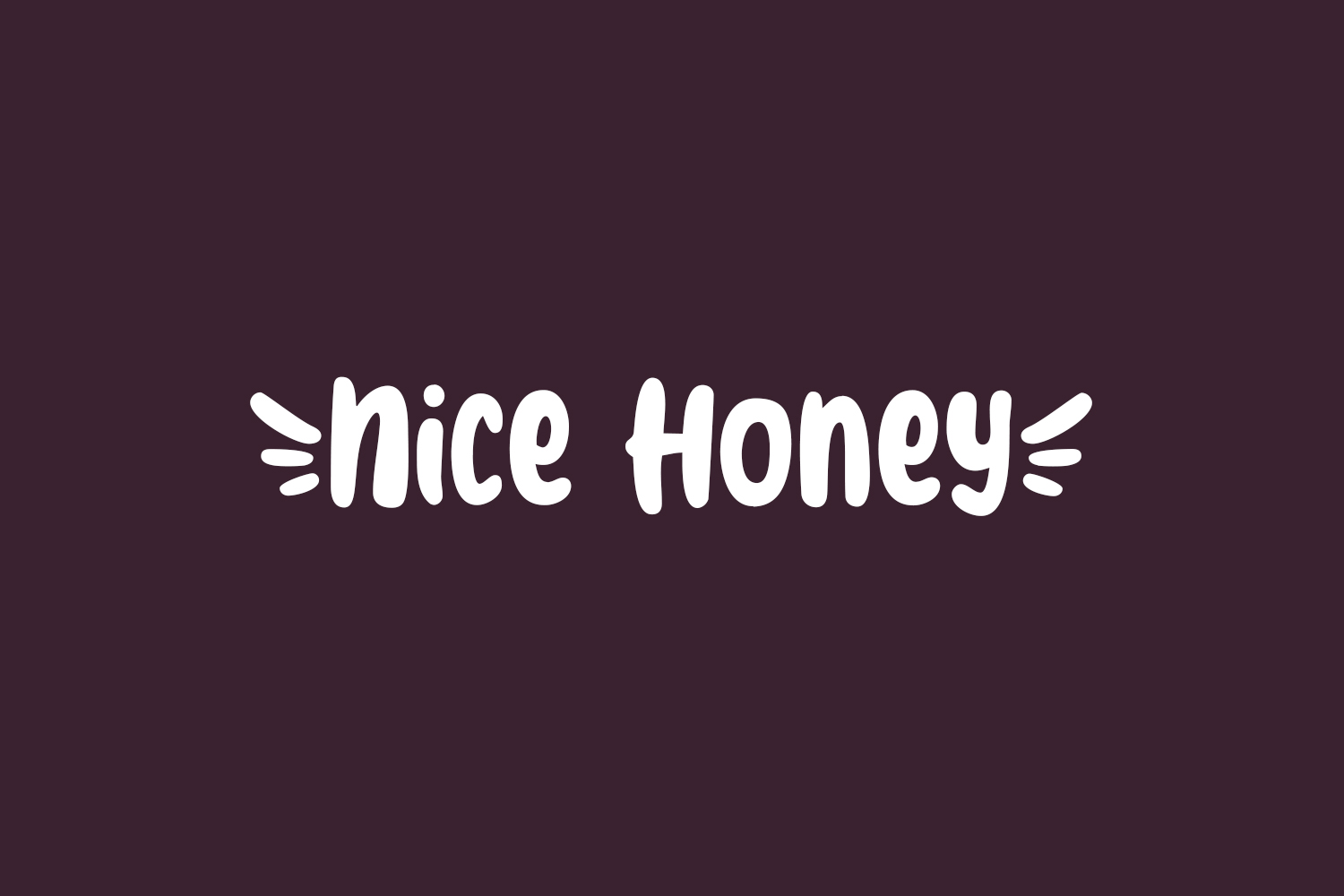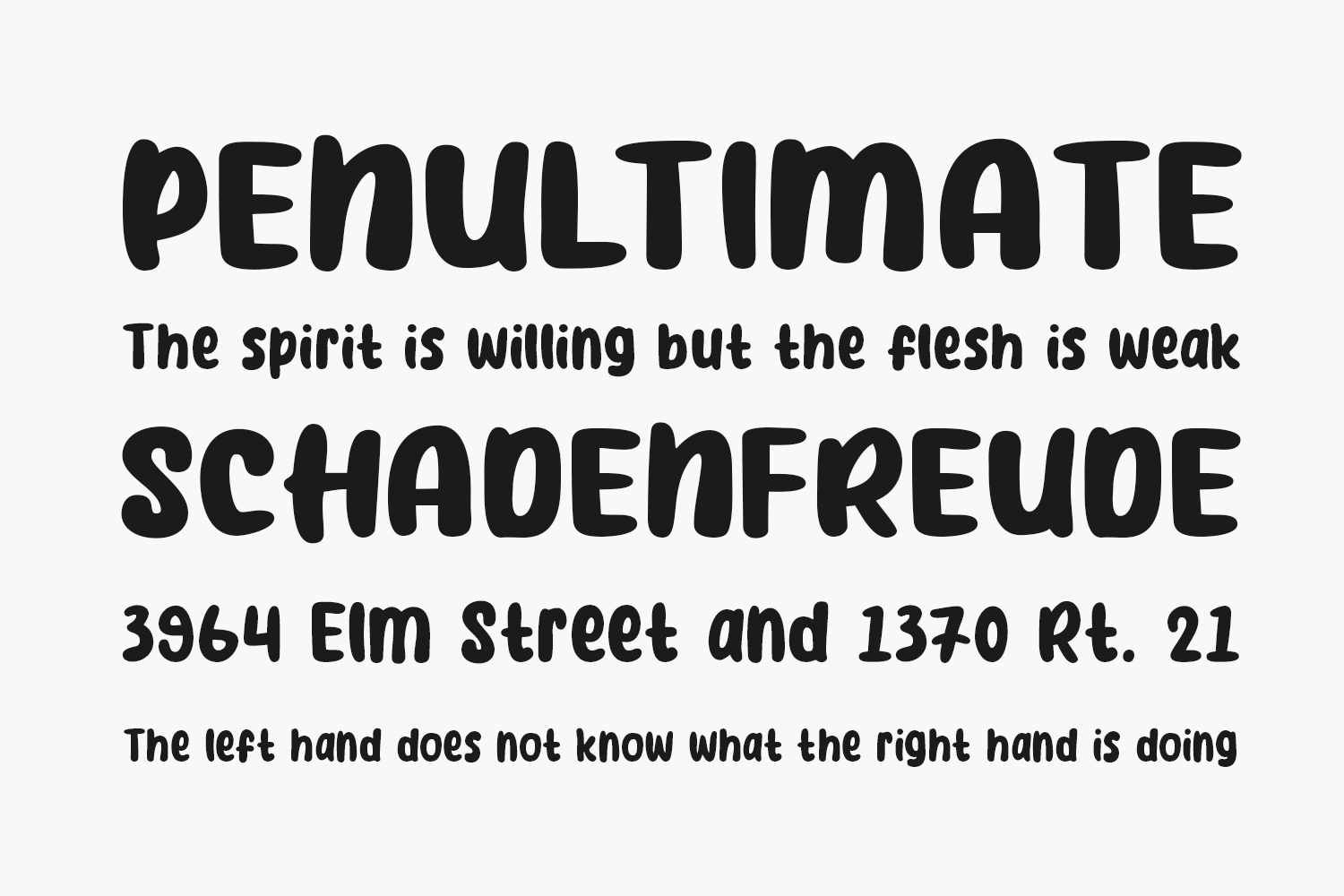
Introducing Nice Honey Free Font – a contemporary and elegant display font, thoughtfully crafted to elevate your designs. Whether you’re designing posters, logos, magazines, book covers, banners, or any other creative project, this font is the perfect choice.
Unlock the potential of your designs with “Nice Honey.” Its versatility allows seamless integration into an extensive range of projects, ensuring that your creative ideas shine like never before. Don’t miss the opportunity to enhance your work with this amazing font and witness how it effortlessly makes your designs stand out from the crowd! Get “Nice Honey” now and bring a touch of sophistication to your creations. Nice Honey Free Font is free for personal or commercial use.